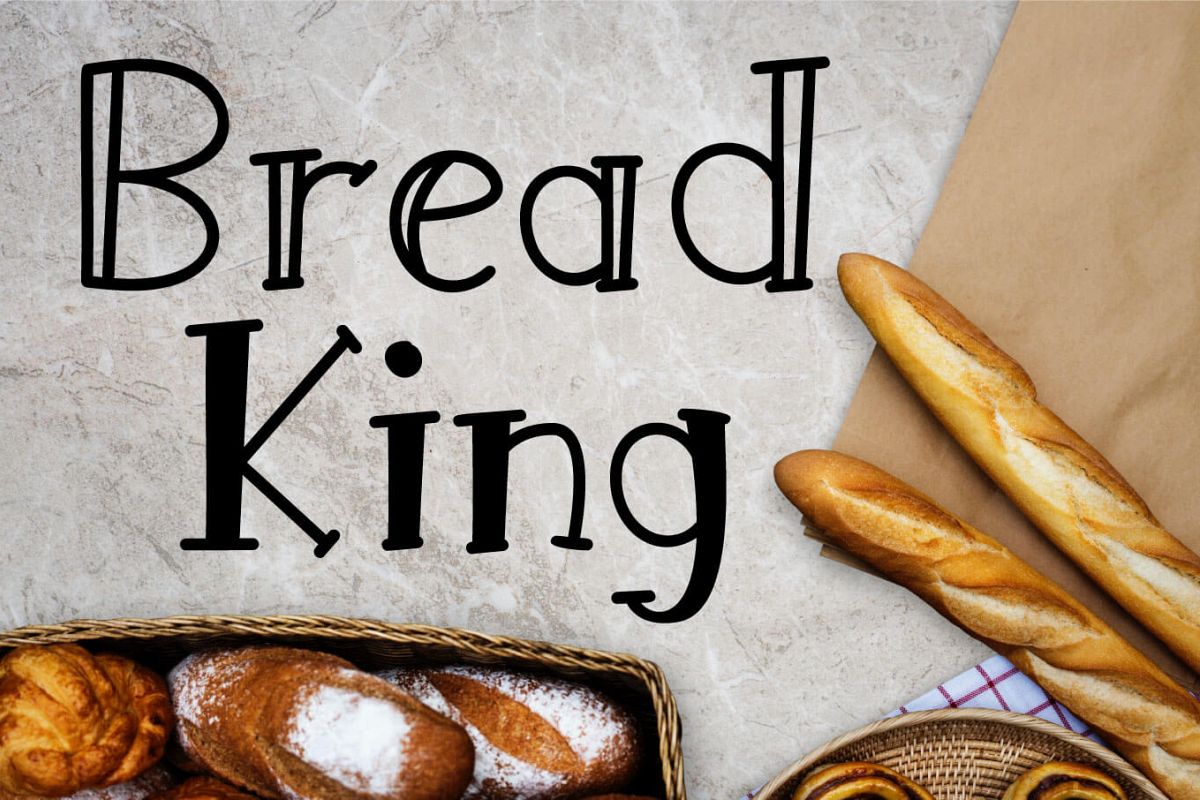
Bread King is a fun font to use in all of your crafting projects! This font comes with two looks: filled and hollow. Mix and match these fonts to create exciting designs.